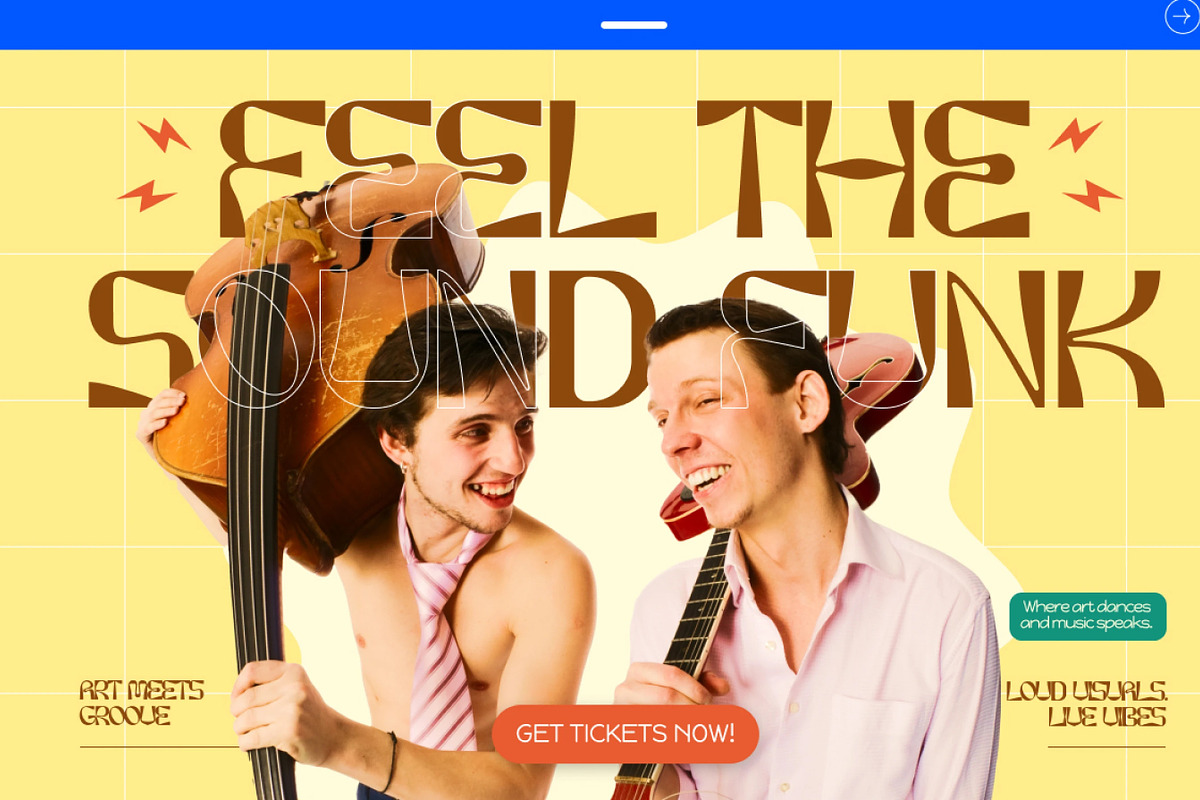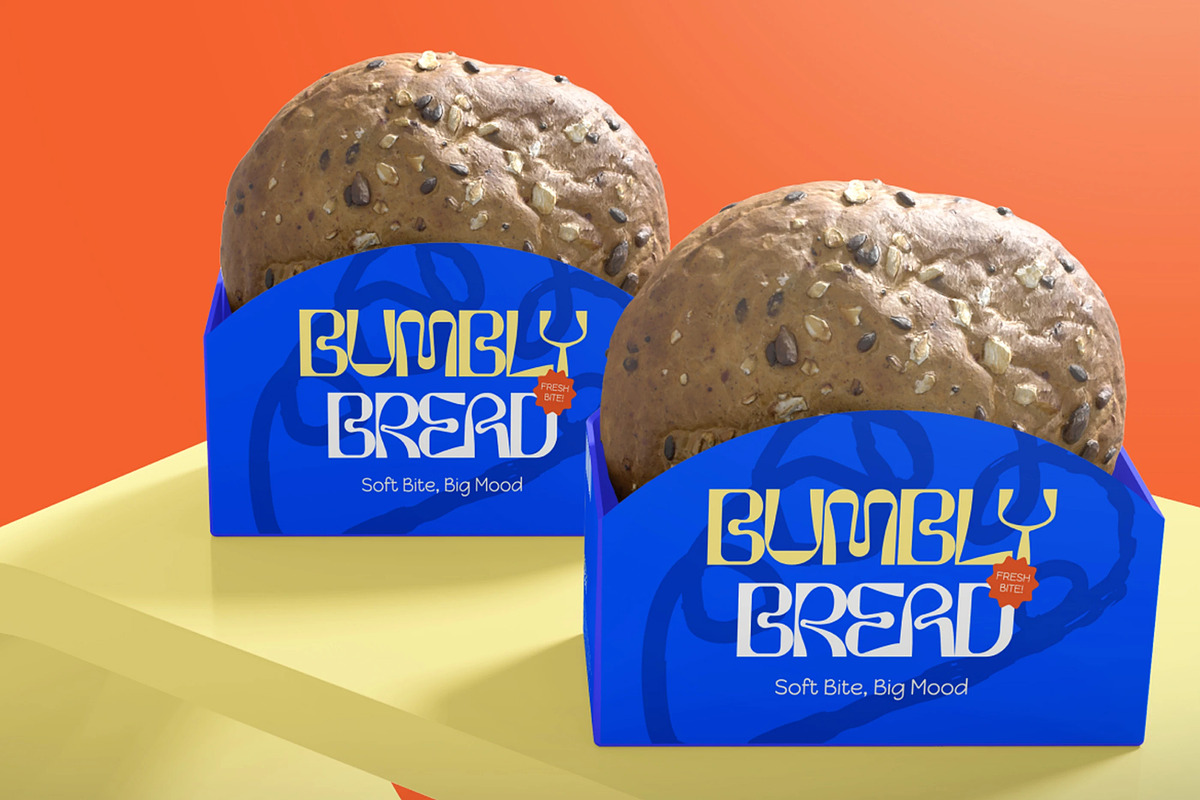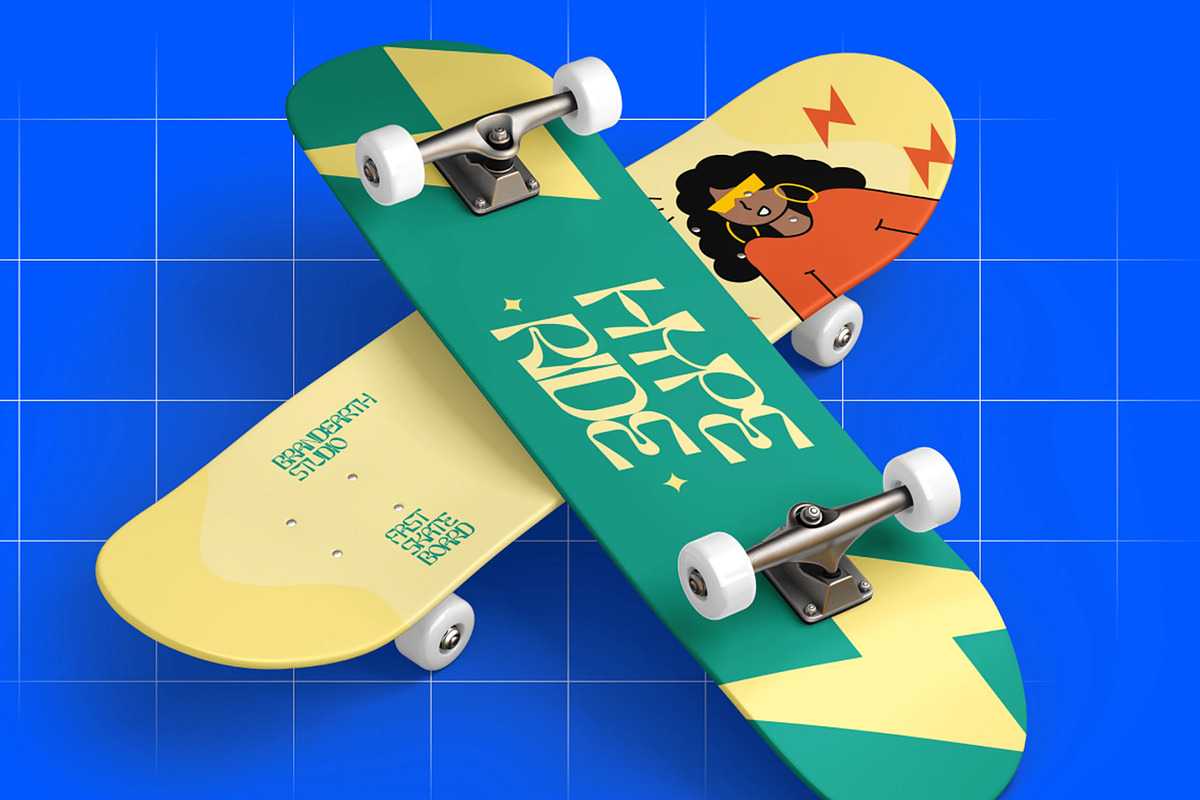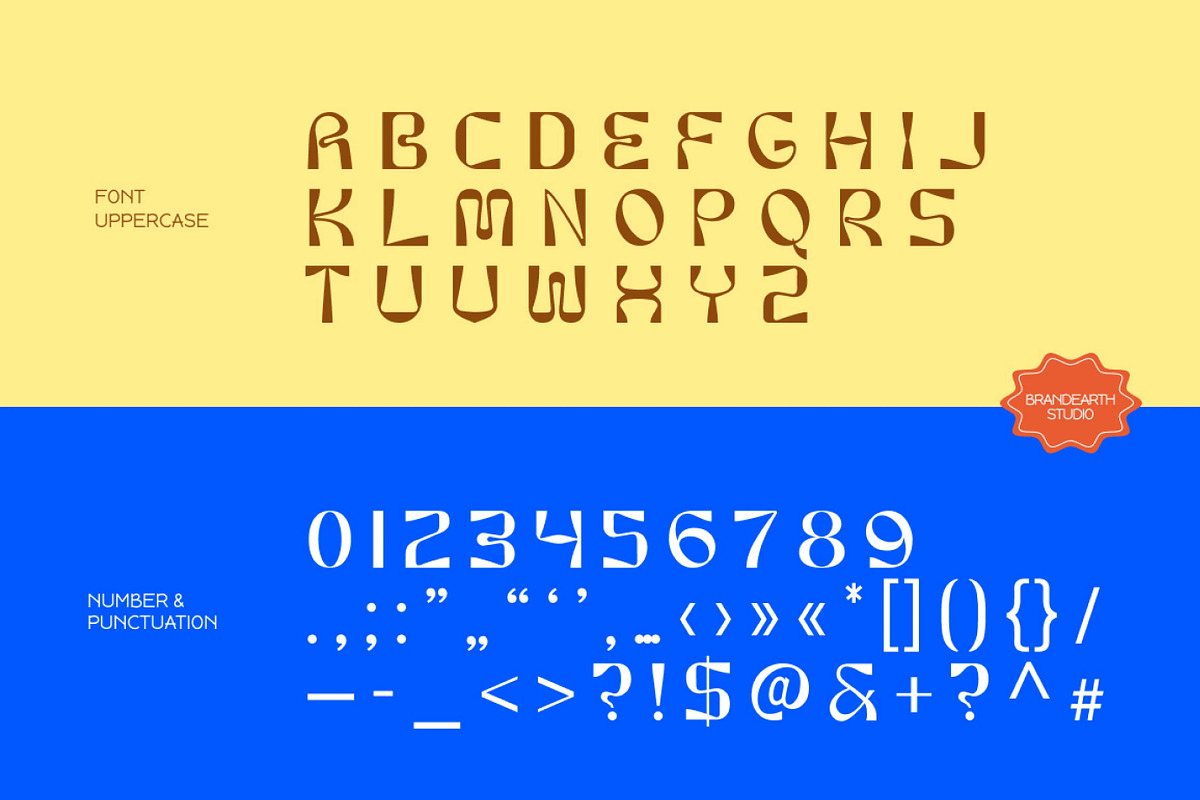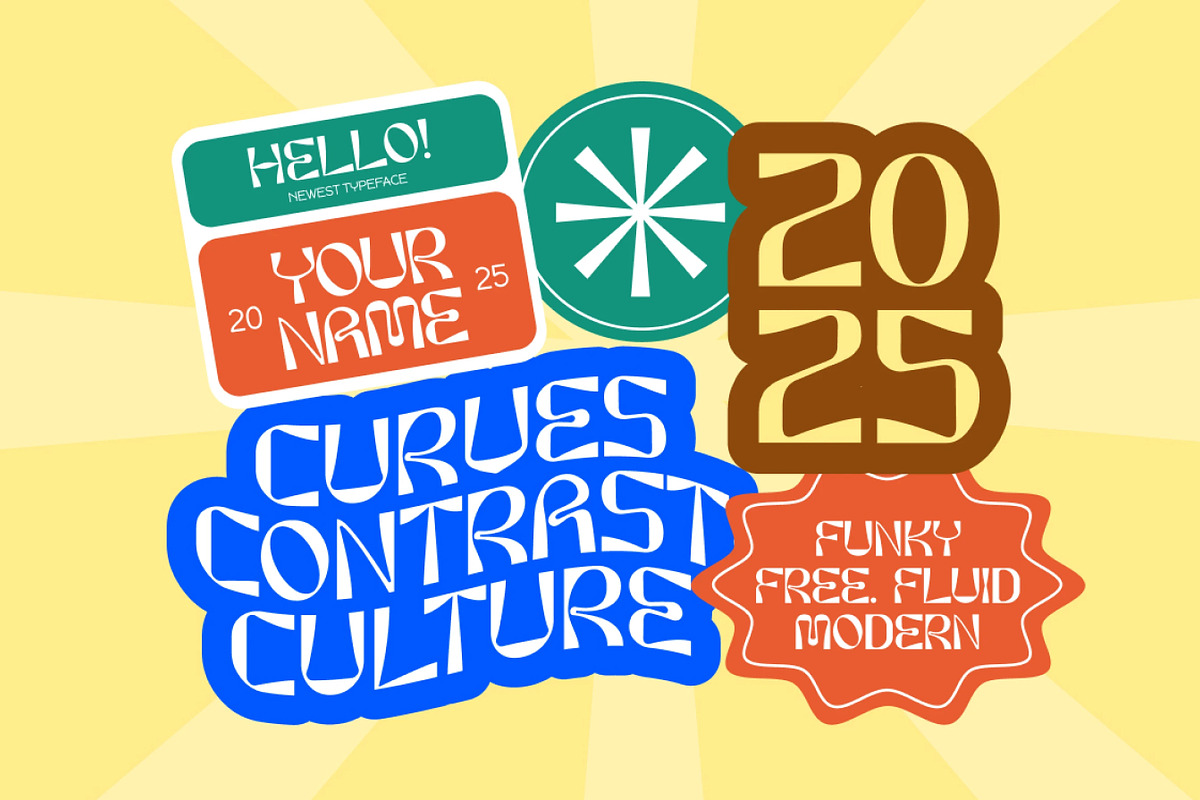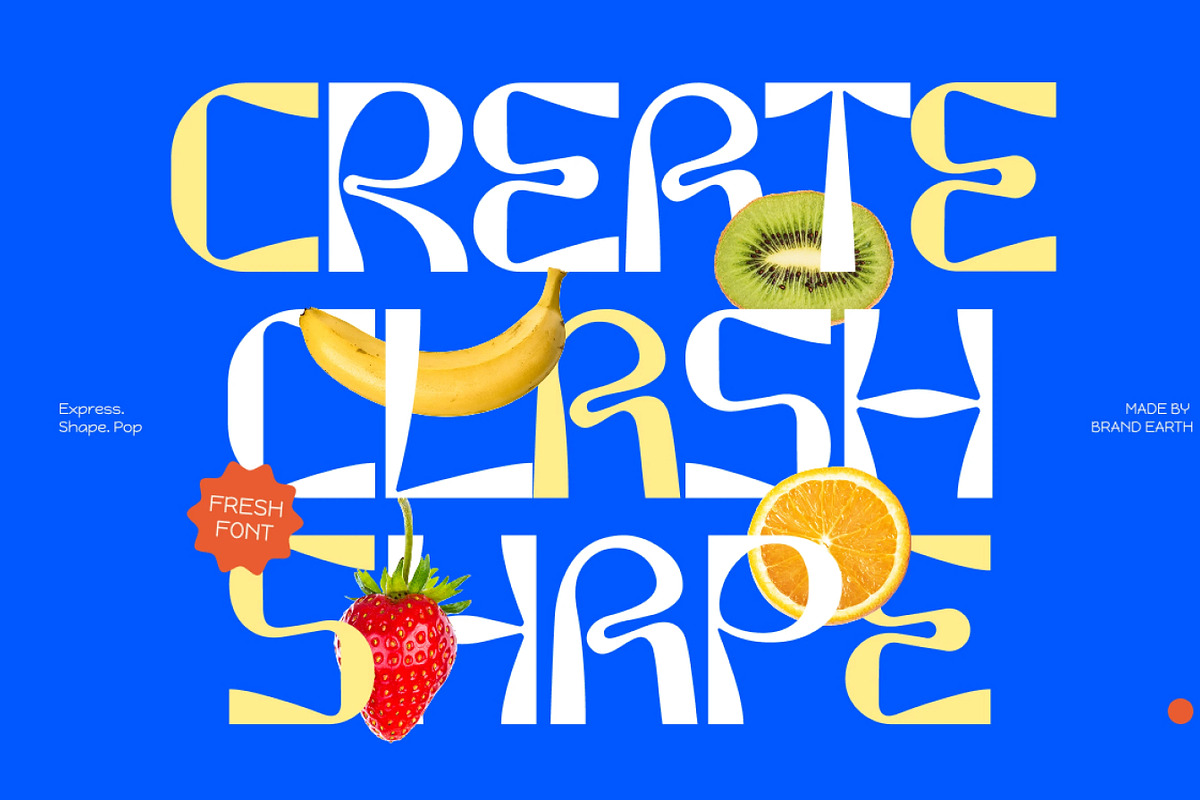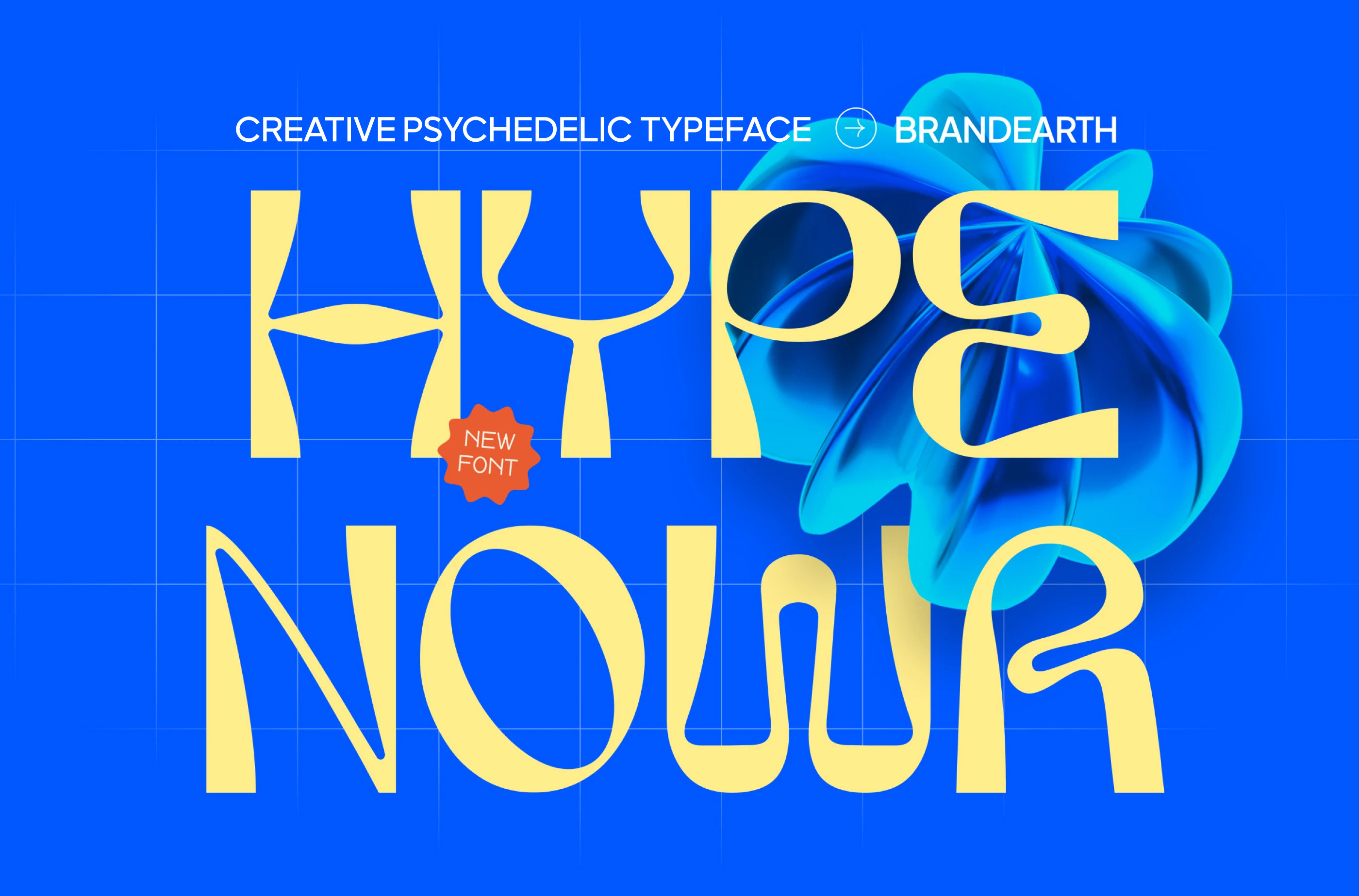
HypeNowa – Groovy Psychedelic Font
HypeNowa Psychedelic is a bold and playful retro-modern typeface inspired by 70s design and modern street culture. With its curvy strokes, unique ligatures, and vibrant energy, this all-caps font blends funky aesthetics with strong readability. Perfect for designs that want to stand out, Hype Nowr brings expressive character and nostalgic flair to branding, packaging, and pop culture visuals.
The letterforms in Hype Nova are built with warped, flowing curves and playful contrast between thick and thin strokes, giving the typeface its distinct groovy, hand-shaped character. It features a lively display quality that's perfect for retro branding, festival promotion, and expressive lettering projects.
With its curvy shapes and funky energy, Hype Nova bridges the gap between nostalgic 70s charm and bold modern display. It delivers a fun, eye-catching feel while staying highly legible at large sizes, making it ideal for packaging, music event posters, and pop culture visuals.
Numeral & Punctuations